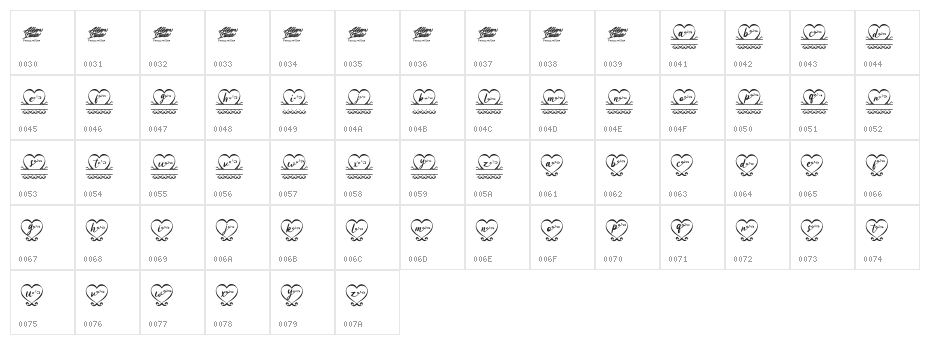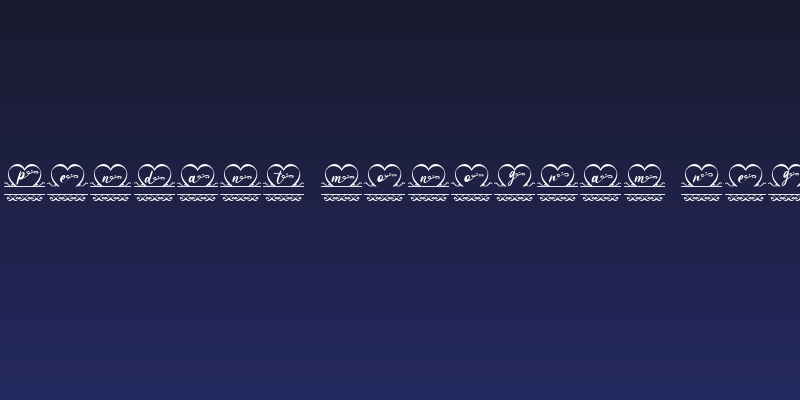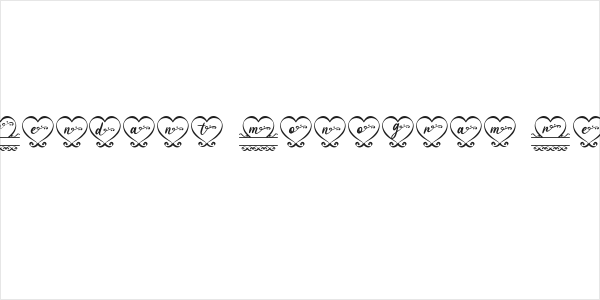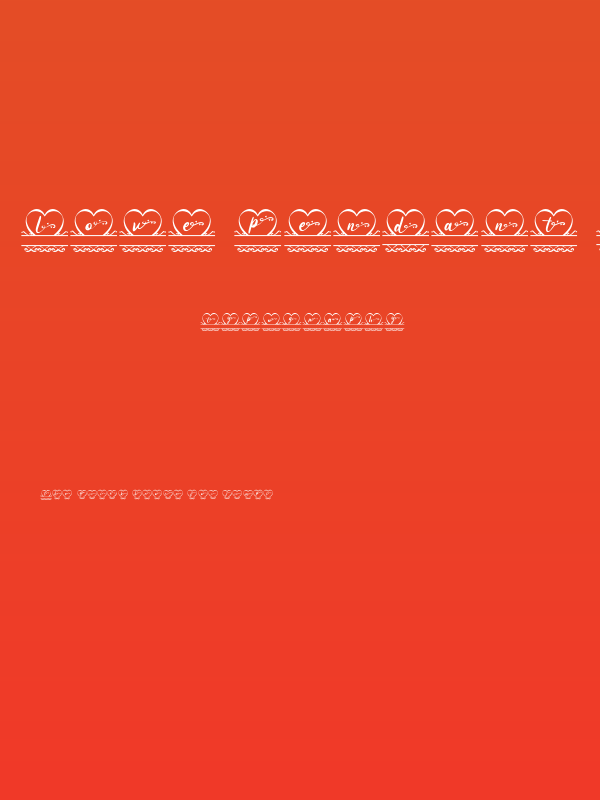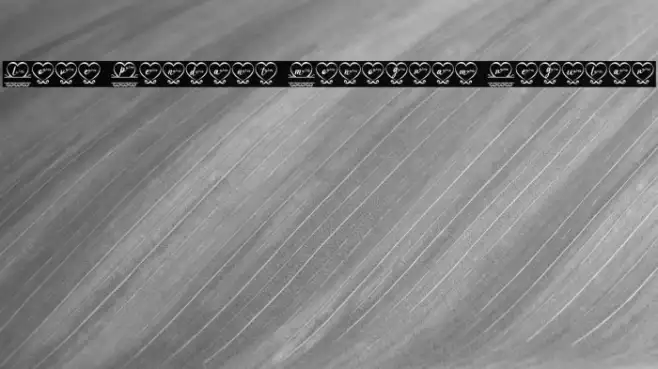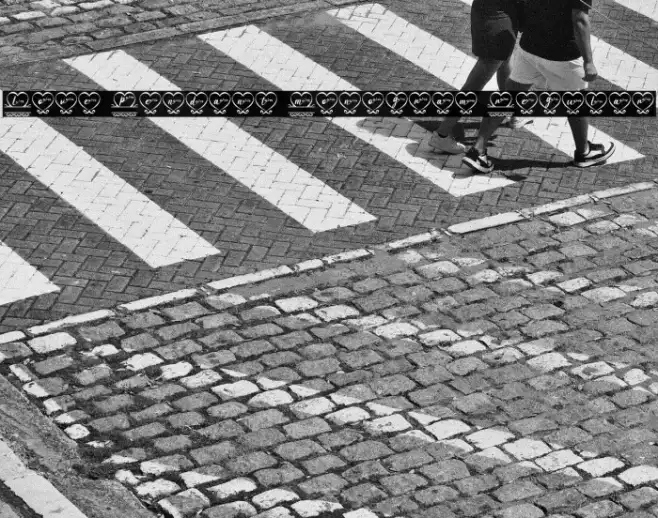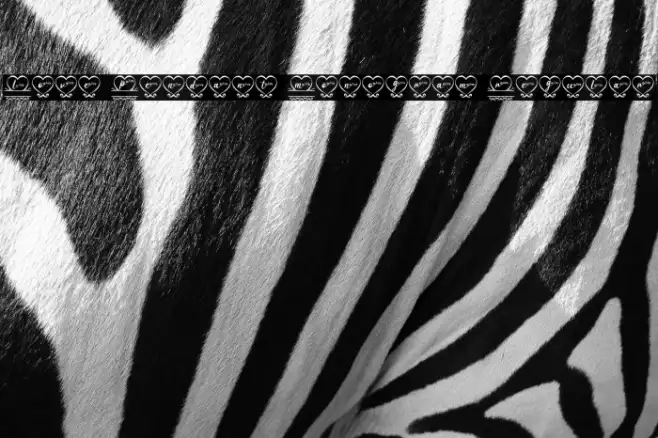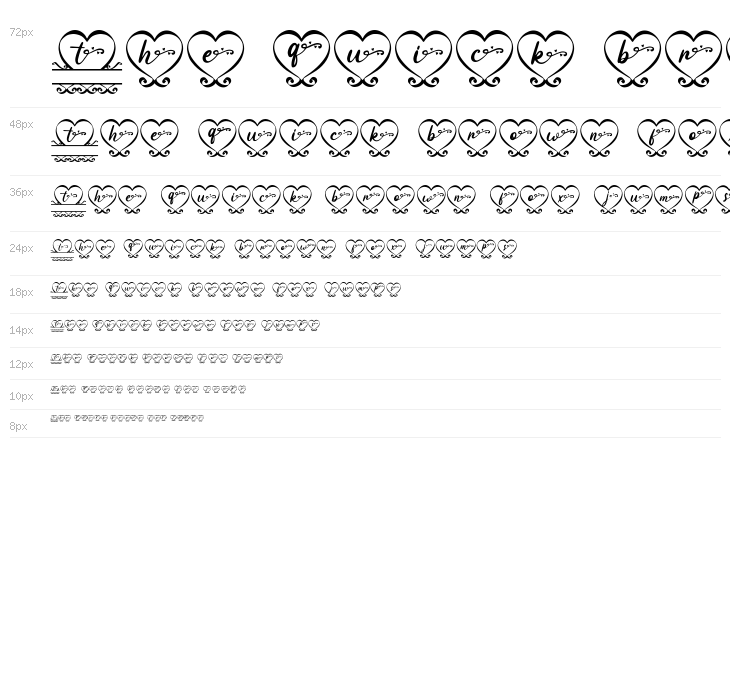
Love Pendant Monogram Regular Font
Love Pendant Monogram Regular Description
This font features a charming and whimsical design, with each character encased in a heart shape, giving it a romantic and playful feel. The letters are crafted in a script style, with elegant, flowing lines that suggest a handwritten quality. The embellishments around the hearts add a decorative touch, making it ideal for projects that require a personal and affectionate tone. The font is consistent in its style, maintaining a cohesive look across both uppercase and lowercase letters. Its unique presentation makes it stand out, perfect for special occasions or themed designs.
| Overall Style | Romantic, Whimsical |
| Proposed Projects | Ideal for wedding invitations, Valentine's Day cards, personalized gifts, and romantic-themed branding. |